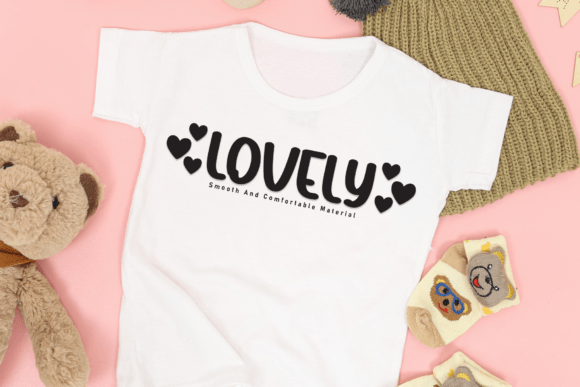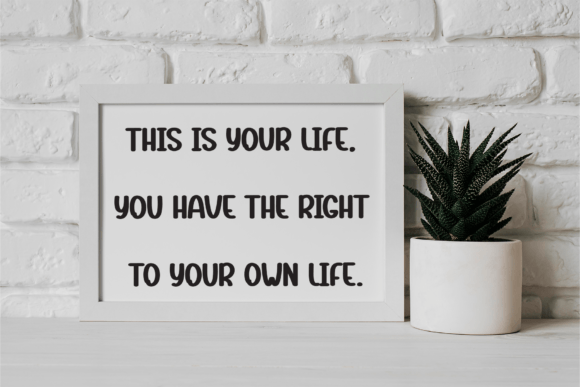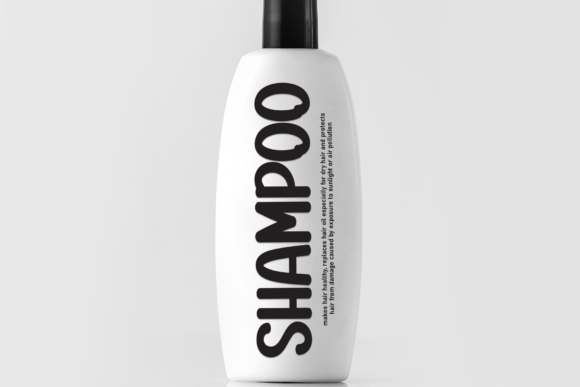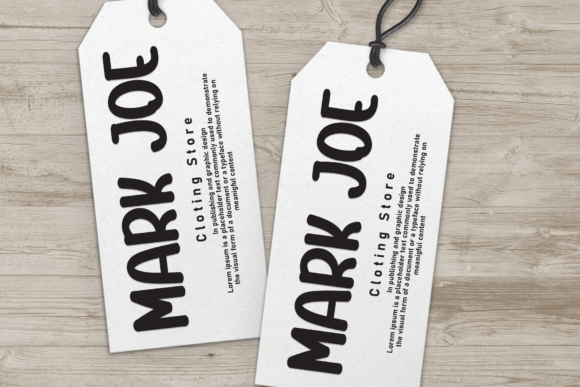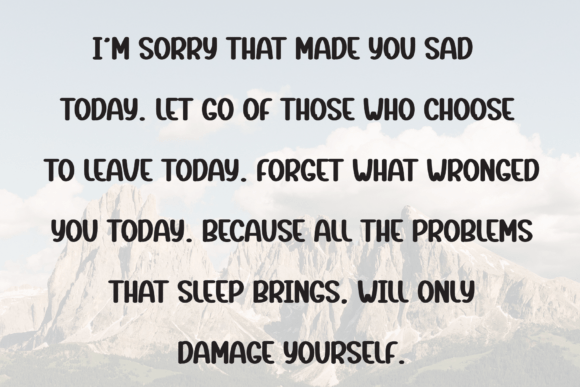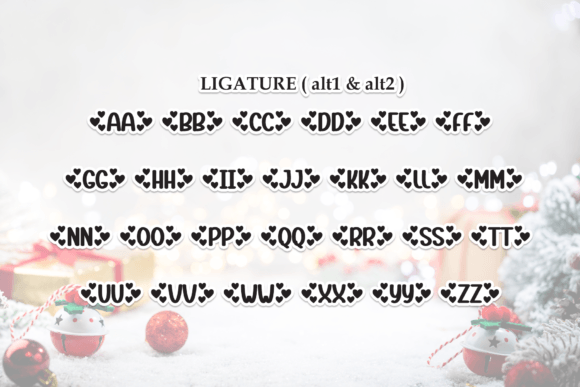
Introducing Everyday Christmas Font: A Sweet and Friendly Handwritten Display Font
Are you looking for a font that can add a touch of fun and whimsy to your designs? Look no further than the Everyday Christmas font! This sweet and friendly handwritten display font is perfect for creating wedding invitations, cards, and other designs that need a playful twist. In this article, we’ll take a closer look at the Everyday Christmas font, its features, and how you can use it to elevate your designs.
What is Everyday Christmas Font?
Everyday Christmas is a handwritten display font that is designed to bring a sense of joy and festivity to your designs. With its cute and fun lettering style, this font is ideal for creating designs that need a personal touch. Whether you’re designing wedding invitations, greeting cards, or social media graphics, the Everyday Christmas font is sure to make your designs stand out.
Key Features of Everyday Christmas Font
- Handwritten style: The Everyday Christmas font features a beautiful handwritten style that is both sweet and friendly.
- Cute and fun: This font is designed to add a touch of fun and playfulness to your designs, making it perfect for creating engaging and interactive designs.
- Display font: The Everyday Christmas font is a display font, which means it’s perfect for headlines, titles, and other design elements that need to make a statement.
- Versatile: This font can be used for a wide range of design projects, from wedding invitations and cards to social media graphics and more.
How to Use Everyday Christmas Font in Your Designs
The Everyday Christmas font can be used in a variety of design projects, including:
- Wedding invitations: Add a touch of whimsy and romance to your wedding invitations with the Everyday Christmas font.
- Greeting cards: Create fun and playful greeting cards for birthdays, holidays, and other special occasions.
- Social media graphics: Use the Everyday Christmas font to create eye-catching social media graphics that will grab the attention of your followers.
- Party decorations: Create custom party decorations, such as banners and signs, with the Everyday Christmas font.
Tips for Using Everyday Christmas Font
Here are a few tips for using the Everyday Christmas font in your designs:
- Pair with a simple font: Pair the Everyday Christmas font with a simple font to create contrast and visual interest.
- Use it sparingly: Use the Everyday Christmas font sparingly to avoid overwhelming your design.
- Experiment with colors: Experiment with different colors and textures to add depth and interest to your design.
The Everyday Christmas font is a sweet and friendly handwritten display font that is perfect for adding a touch of fun and whimsy to your designs. With its cute and playful lettering style, this font is ideal for creating wedding invitations, cards, and other designs that need a personal touch. Whether you’re a designer or a crafter, the Everyday Christmas font is sure to become a favorite in your design arsenal.